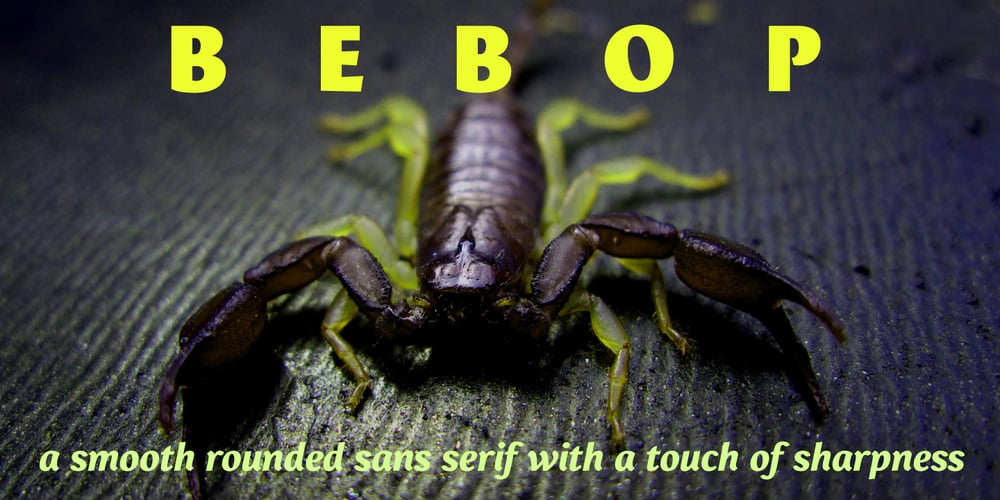
Bebop Font Family was designed by Thierry Puyfoulhoux and published by Présence Typo. Bebop contains 10 styles and family package options. Here is a sans-serif built up on an old-style design framework especially perceptible in the italic. It is the conjunction of contradictories feelings: pointed / soft, classical / modern. The smaller the typesetting, the better it works.